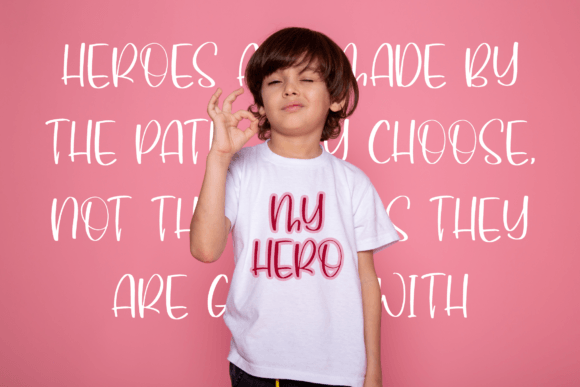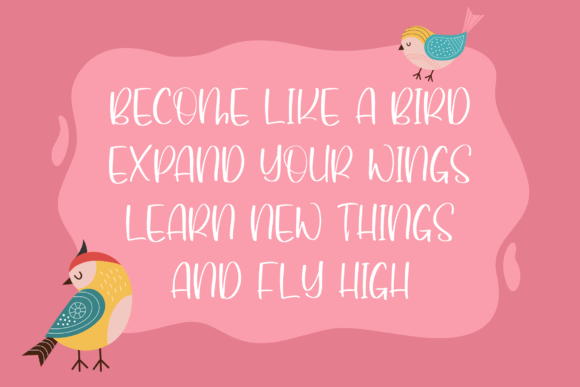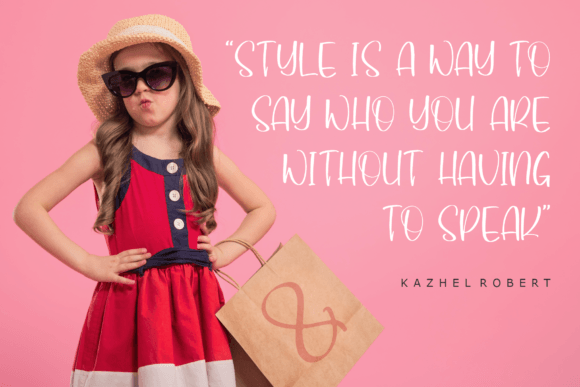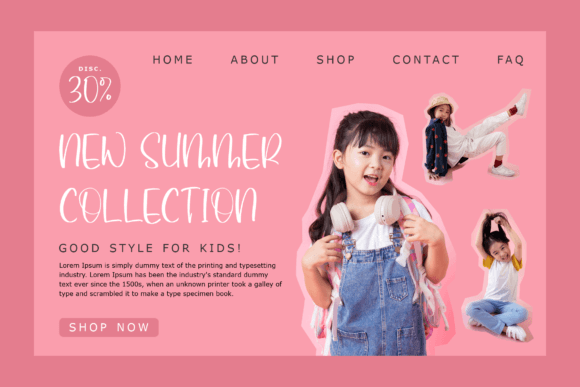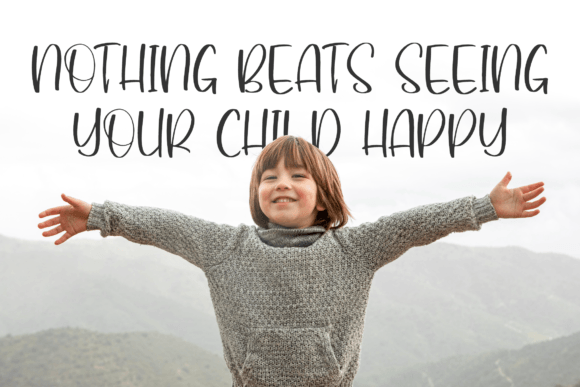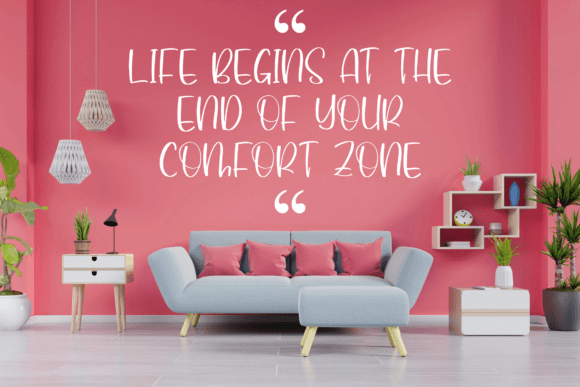
Crafting with Personality: Discover the Charm of Awkward Humminbirds Font
We’ve all been there – staring at a blank page, trying to conjure up the perfect design to bring our creative vision to life. For many designers, the key to unlocking that perfect look lies in the font. And, we’re excited to introduce you to one that’s sure to bring a smile to your face: Awkward Humminbirds Font. This adorable handwritten font is more than just a pretty face – it’s a versatile tool that’s perfect for a wide range of projects, from logos and branding to homeware designs and product packaging.
What sets Awkward Humminbirds Font apart is its ability to add a touch of whimsy and personality to even the most mundane designs. Whether you’re creating a set of greeting cards, designing a t-shirt, or crafting a book cover, this font is sure to bring a unique and charming touch to your work. For designers, Awkward Humminbirds Font is a valuable addition to any toolkit, offering endless possibilities for creative expression and experimentation.
- Font Family: Awkward Humminbirds is a unique, handwritten font designed for creative and artistic purposes.
- Unique Characteristics: Awkward Humminbirds features an irregular, hand-drawn style with unique letterforms and flourishes, adding a touch of personality to any design.
I’ve had the chance to work with the Awkward Humminbirds Font, and I must say it’s a unique and quirky addition to any design project. ✨ The font’s imperfections and irregularities give it a lovable, hand-drawn feel that’s perfect for creative and offbeat projects.
- ✨ The font’s personality shines through in its inconsistent letterforms, making it perfect for adding a touch of whimsy to your designs.
- ✨ The font is highly customizable, allowing you to tweak its irregularities to fit your project’s tone and style.
- ✨ The font’s unique feel makes it stand out in crowded design spaces.
- ⚠️ The font may not be suitable for projects that require a high level of professionalism or polish.
- ⚠️ The font’s irregularities can be overwhelming if used extensively, so be sure to balance it with other design elements.
- ⚠️ Some users may find the font’s quirks distracting or difficult to read.
Overall, the Awkward Humminbirds Font is a great choice for designers who want to add a touch of personality to their projects. While it may not be suitable for every project, it’s a fun and unique addition to any design toolbox.
The Awkward Humminbirds Font is perfect for adding a touch of whimsy and personality to your designs. Some common use cases include:
– Creating playful and eye-catching titles and headings.
– Adding a unique touch to social media graphics and posts.
– Using it in combination with other fonts to create a custom and eclectic design style.